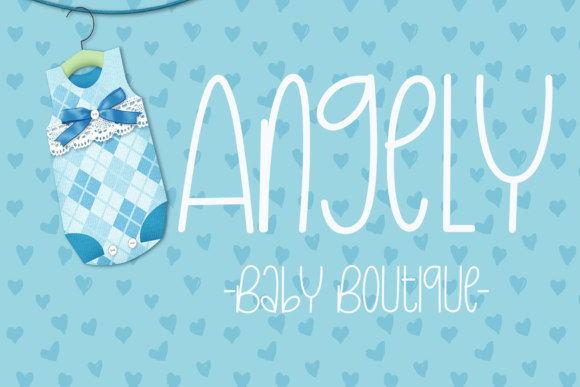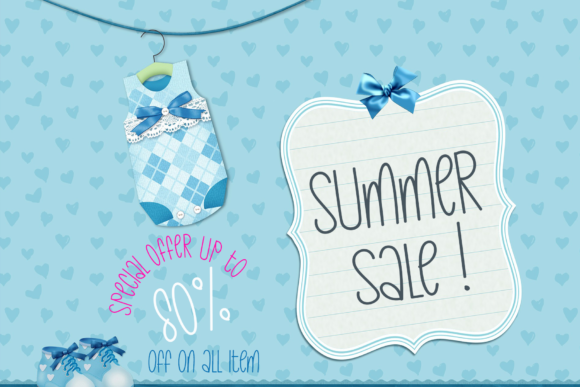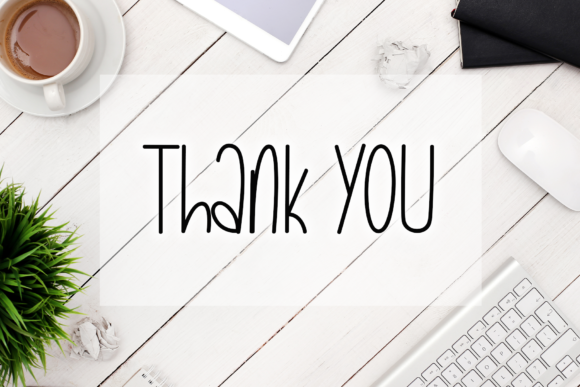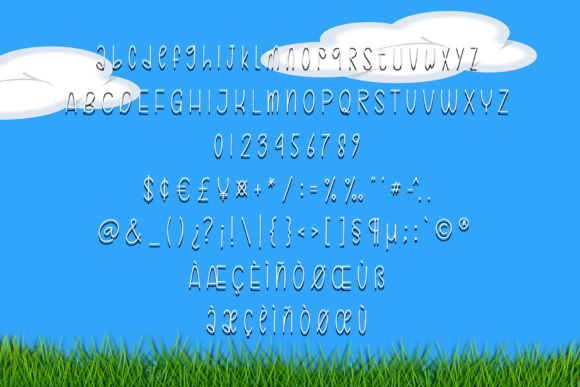
About Simple Handwriting Font
Introducing “Simple Handwriting,” a beautiful and slim handwritten font designed to bring sophistication to your creative projects. Beyond just being a typeface, Simple Handwriting is a carefully crafted design element that enhances the visual appeal of your work. Whether you’re working on wall displays, wedding invitations, social media post logos, advertisements, product packaging, labels, photography, watermarks, invitations, stationery, or any project requiring impressive typography, Simple Handwriting is the perfect choice.
The beauty and slim design of Simple Handwriting shine through its handwritten style, offering a harmonious blend of simplicity and elegance. Imagine using this font for wedding invitations, where its slim script adds a touch of modernity to the design. Envision it on social media posts, logos, or product packaging, infusing a sense of sophistication into your brand identity. Simple Handwriting becomes a versatile tool for creating visually appealing and impactful designs across a variety of projects.
Simple Handwriting is well-suited for different creative contexts, adapting seamlessly to deliver a visual impact that is both beautiful and memorable. Its slim script and impressive typography make it a versatile choice for a wide range of design applications.
Choose Simple Handwriting as the font that brings a beautiful and slim handwritten style to your projects. Let its simplicity and elegance add a touch of sophistication to your wall displays, wedding invitations, social media posts, product packaging, and more. Allow Simple Handwriting to be the creative element that elevates your designs, creating a visual impact that is both impressive and memorable.